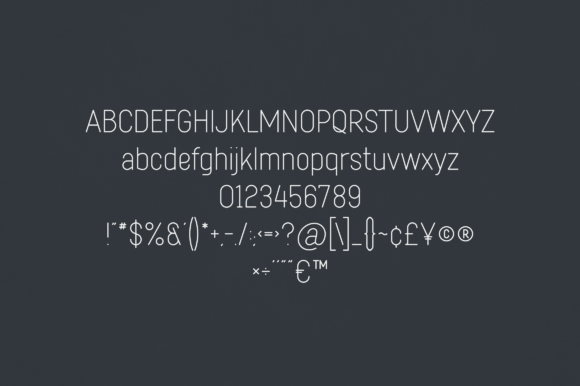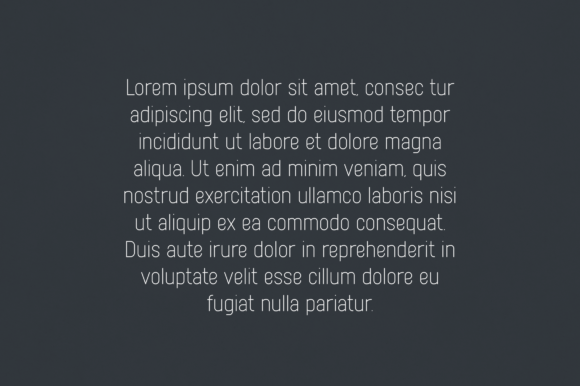
Introduction to Rue Font
Have you ever stared at a blank canvas, waiting for the perfect font to bring your creative project to life? As designers, we’ve all been there – searching for that elusive combination of style and sophistication to elevate our work. That’s where the enchanting Rue Font comes in. With its elegant and versatile design, this font is sure to captivate your audience and leave a lasting impression.
Rue Font is more than just a font – it’s a design resource that will make your typography truly unique. Whether you’re working on a branding project, home-ware design, or product packaging, this high-quality font will add a touch of sophistication and style to your work. And the best part? It’s available for free download, making it an accessible addition to any creative project.
- Comes in a single font style with multiple weights, making it easy to customize and match your design needs.
Honest Review: Rue Font
I recently had the chance to work with the Rue Font, and I must say it’s a great addition to any designer’s toolkit. One of the standout features is the high quality of the font, which looks amazing even at small sizes. The free download option is also a huge plus, making it accessible to designers of all levels.
One of the things that really impressed me about Rue Font is the transparent background, which makes it incredibly easy to integrate into any design project. The font also has a clean and modern aesthetic, making it perfect for creative projects that require a sleek and sophisticated look.
- High-quality font that looks great at any size
- Transparent background for easy integration into design projects
- Clean and modern aesthetic, perfect for creative projects
- ⚠️ Limited language support, which may be a issue for designers working on international projects
- ⚠️ Not ideal for projects that require a more ornate or decorative font
Overall, I’m really impressed with the Rue Font, and I think it’s a great addition to any designer’s toolkit. While it may have some limitations, the high quality and free download option make it well worth considering for any creative project.
Rue Font
Rue Font is a high-quality design resource that offers a free download of a stylish and modern font. This font features a transparent background, making it ideal for creative projects that require a touch of elegance.
Tips for Getting the Most Out of Rue Font
Here are some tips for getting the most out of Rue Font:
- Use the Rue Font in combination with other design elements to create a cohesive design.
- Take advantage of the transparent background to create visually appealing graphics.
Rue Font is ideal for a variety of creative projects, including:
- Typography projects
- Print and digital marketing materials